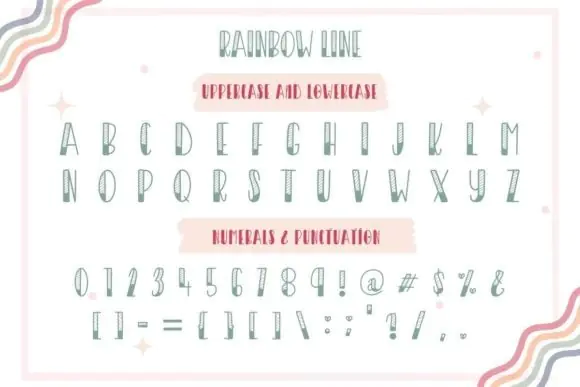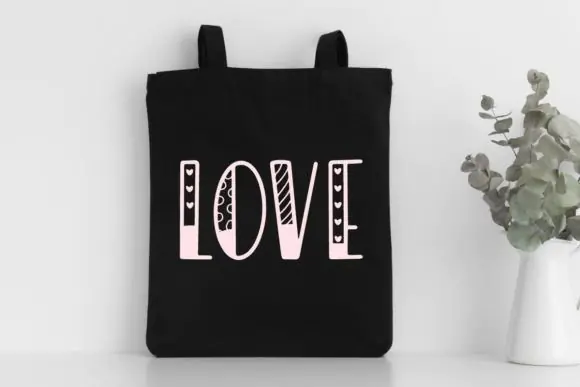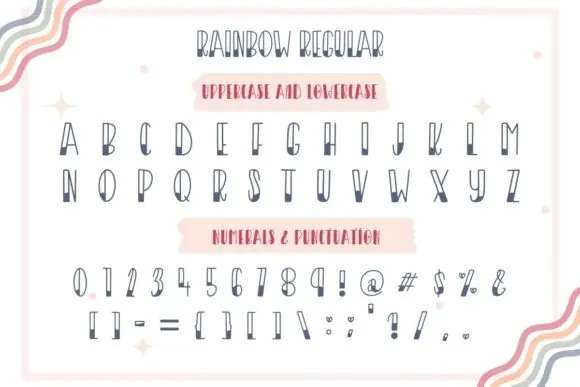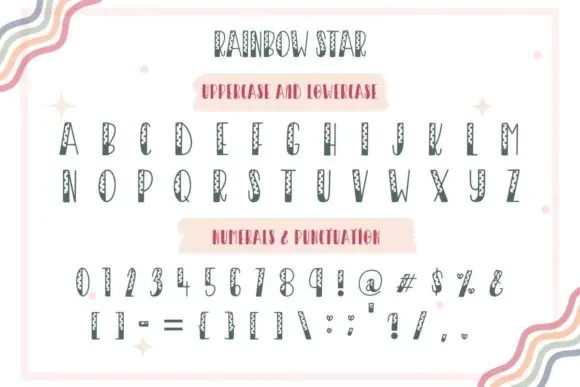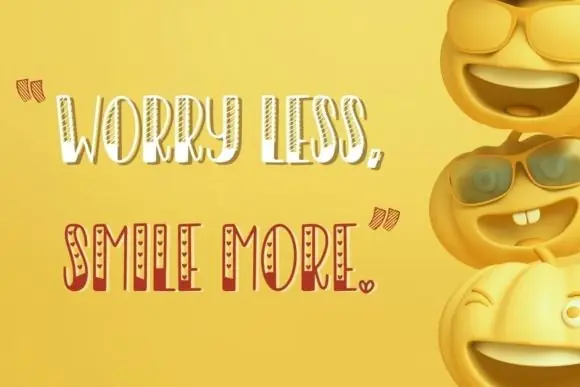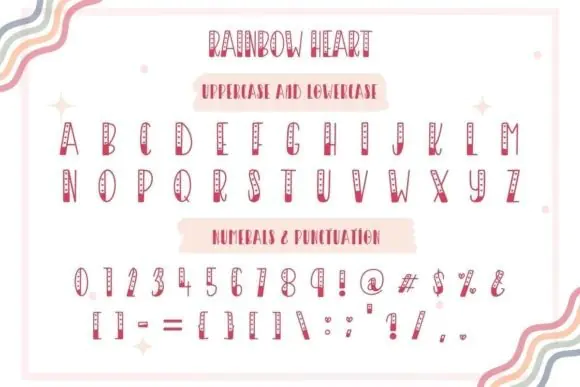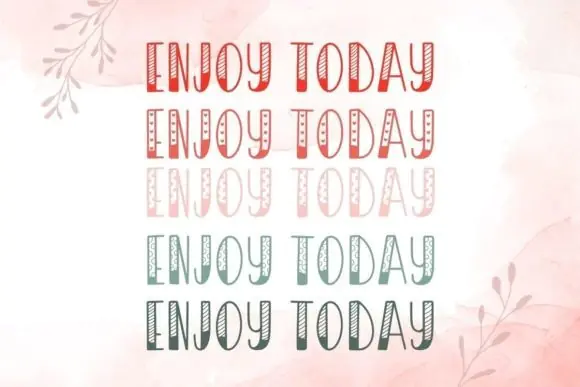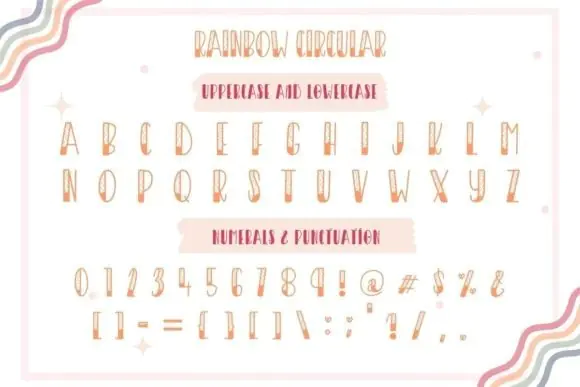
Rainbow Decorative Font | Cute 5-Style Fun Typeface with Circle, Line, Star, Heart & Regular Styles for Mugs, Shirts, Cards, Banners & Social Media Designs
Create cheerful, playful, and eye-catching designs with Rainbow Font, a cute decorative font collection designed to add fun personality to your creative projects. This font set includes 5 different styles — circle, line, star, heart, and regular — giving you flexible options to create bright, charming, and unique typography for many types of designs.
Rainbow Font is perfect for designers, crafters, teachers, stationery creators, print-on-demand sellers, social media designers, and small business owners who want a fun and decorative typeface for cute, colorful, and family-friendly projects. Its bold letterforms combined with playful decorative elements make it ideal for creating joyful designs that stand out.
Use Rainbow Font for banners, mugs, greeting cards, t-shirts, kids’ apparel, classroom materials, stationery, stickers, invitations, birthday designs, social media posts, planner pages, party decorations, printable crafts, and digital products. Whether you are creating a cute mug design, cheerful birthday card, fun school printable, colorful social media graphic, or playful t-shirt design, Rainbow Font adds a happy and creative touch to your layout.
Its multiple style options make it easy to match different moods and themes, from sweet heart designs to magical star graphics and simple regular text layouts.
• Mug designs
• T-shirt and shirt designs
• Greeting cards
• Birthday invitations
• Party banners
• Kids’ designs
• Classroom printables
• Stationery art
• Social media posts
• Stickers and labels
• Planner pages
• Printable crafts
• Cute wall art
• Digital product designs
• Print-on-demand products
Key Style Features
• Cute decorative font collection
• Includes 5 font styles
• Circle, line, star, heart, and regular styles
• Bold and playful letterforms
• Fun and cheerful visual personality
• Great for kids and family-friendly designs
• Perfect for mugs, cards, shirts, and banners
• Suitable for print and digital projects